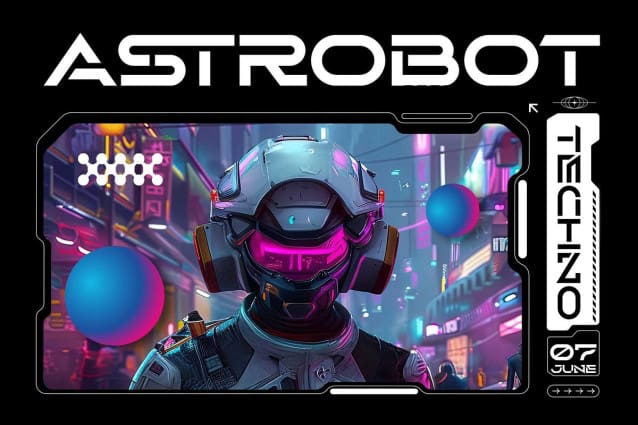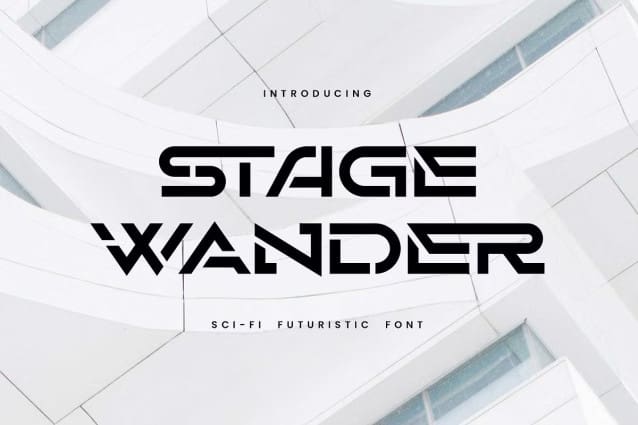
Stage Wander Font
Stage Wander Font – This geometric concept and stencil design offers dynamic looks and a sci-fi touch. The letterform features strong shapes, perfect for titles or displays.
It also includes stylish ligatures that will make your design look more hi-tech and sporty! Use this font for posters, flyers, logos, signage, movie posters, covers, banners, and more.